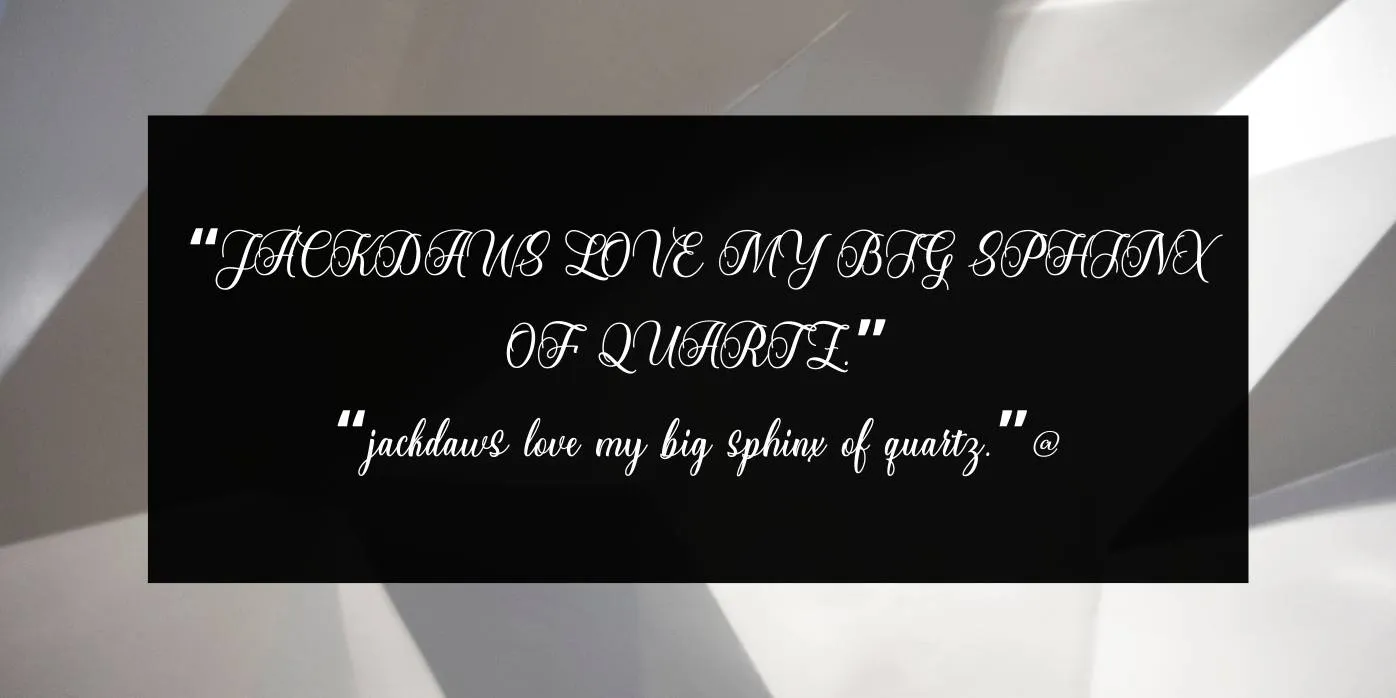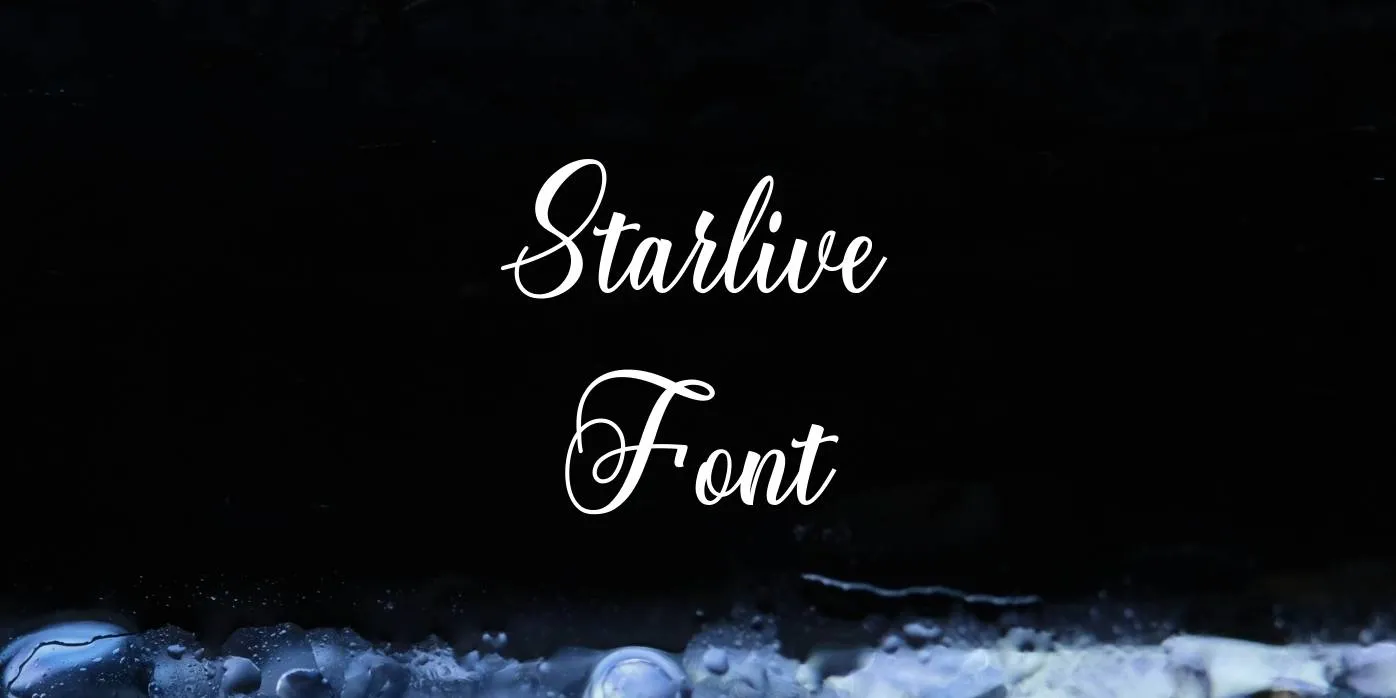
Starlive Font
Starlive Font is a calligraphy typeface that was designed in the early 1980s by Jonathan Barnbrook. It is a script typeface with a humanist design. The Font family includes 12 fonts in 6 weights (Light, Regular, Medium, DemiBold, Bold, and ExtraBold) and 2 widths (Normal and Condensed). The Font family was designed with a humanist design philosophy.
This means that the fonts have a greater variety of stroke widths than most sans serif typefaces, and the curves are more organic. These features give the fonts a more natural and readable appearance. The alice in wonderland font is a great fancy typeface and is best for pairing procedures with this typeface. The Font family is named after the star system Alpha Centauri, which is the closest star system to Earth.
The name was chosen because the fonts are designed to be easy to read at small sizes, and Alpha Centauri is one of the brightest stars in the night sky.